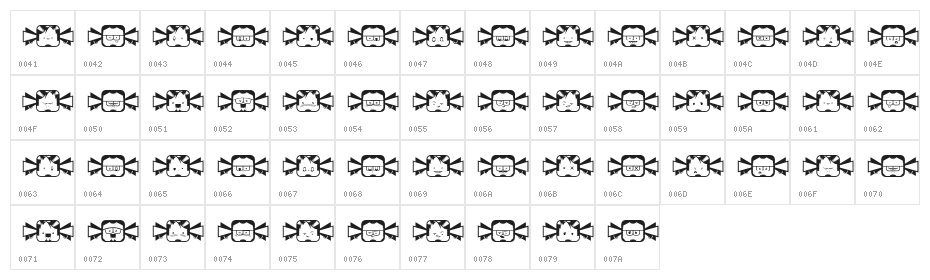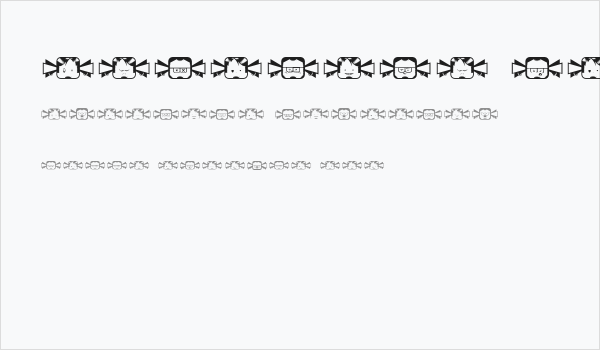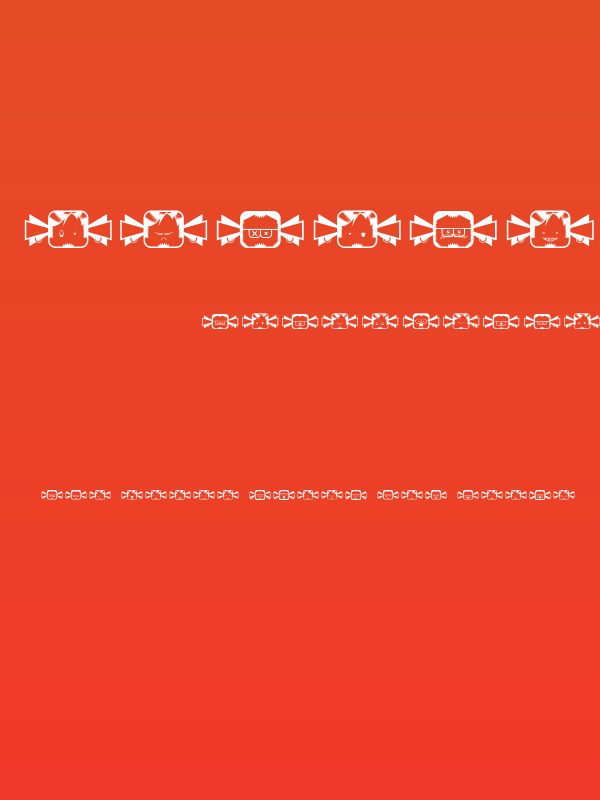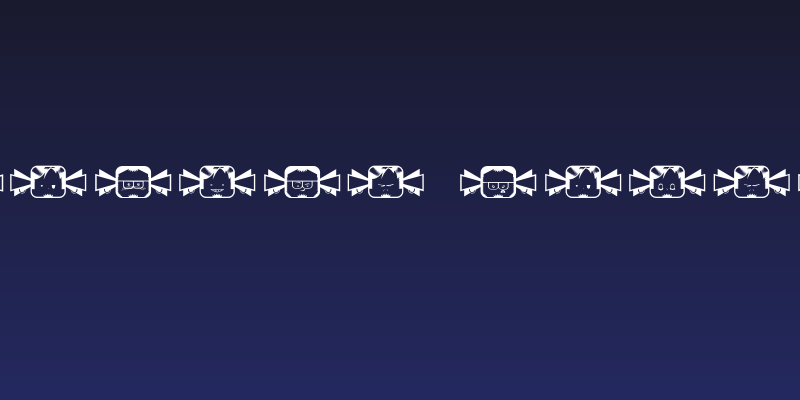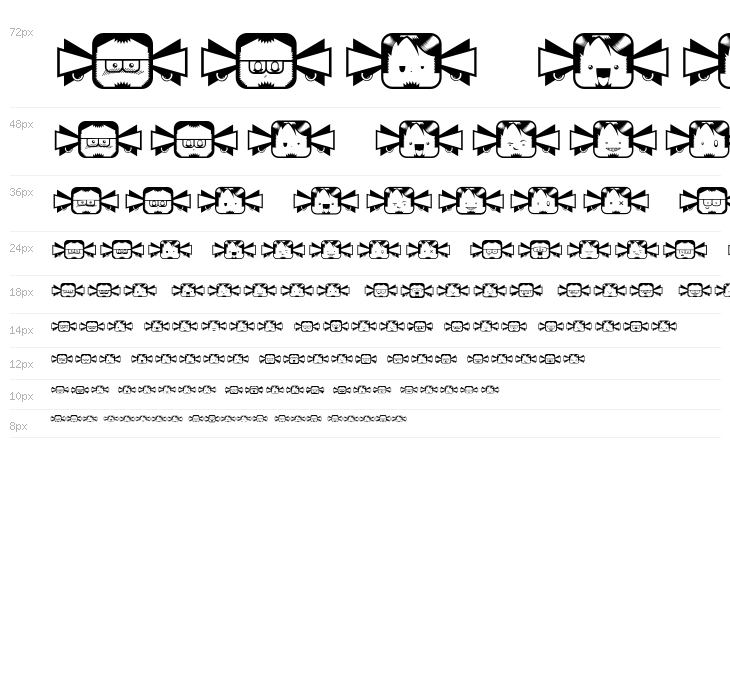
Coletivo Negobom Font
Coletivo Negobom Description
This design features a series of playful, cartoon-like faces encased in a candy wrapper shape. Each character is distinct, with unique expressions and features, creating a whimsical and engaging visual experience. The design is consistent across all characters, maintaining a uniform style that is both charming and humorous. The use of bold outlines and simple shapes makes it easily recognizable and memorable. This style is ideal for projects that aim to convey a sense of fun and creativity, appealing to a younger audience or those looking for a lighthearted aesthetic.
| Overall Style | Whimsical |
| Use Case | Logos, Merchandise, Children's Books |
| Proposed Projects | This design is perfect for children's book illustrations, playful branding, or merchandise targeting a young audience. It could also be used in educational materials or as decorative elements in playful settings. |